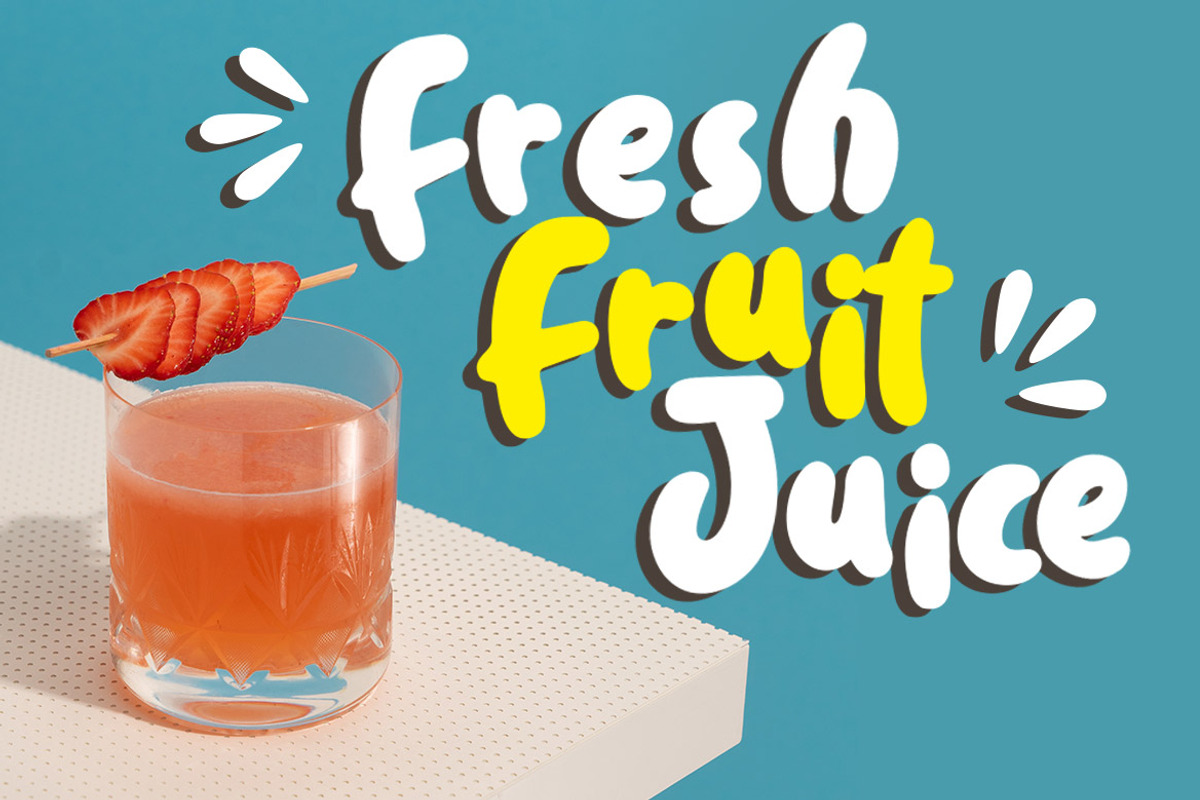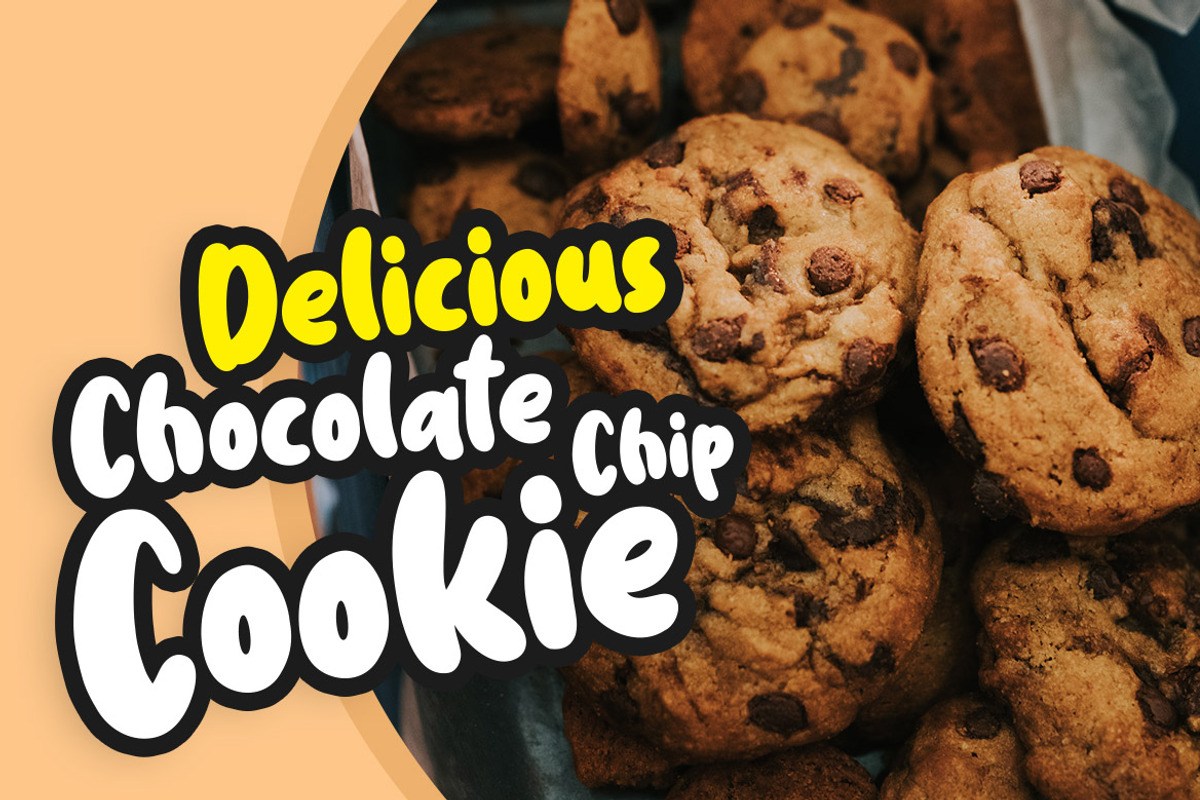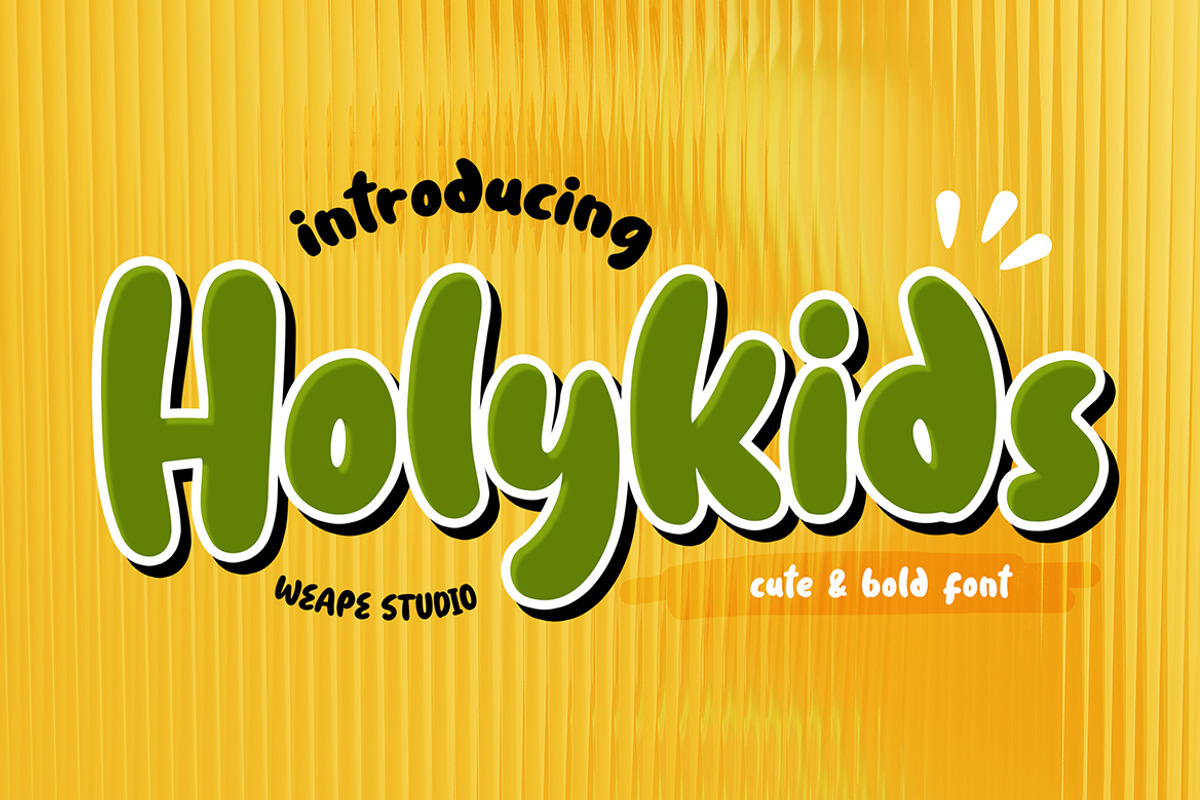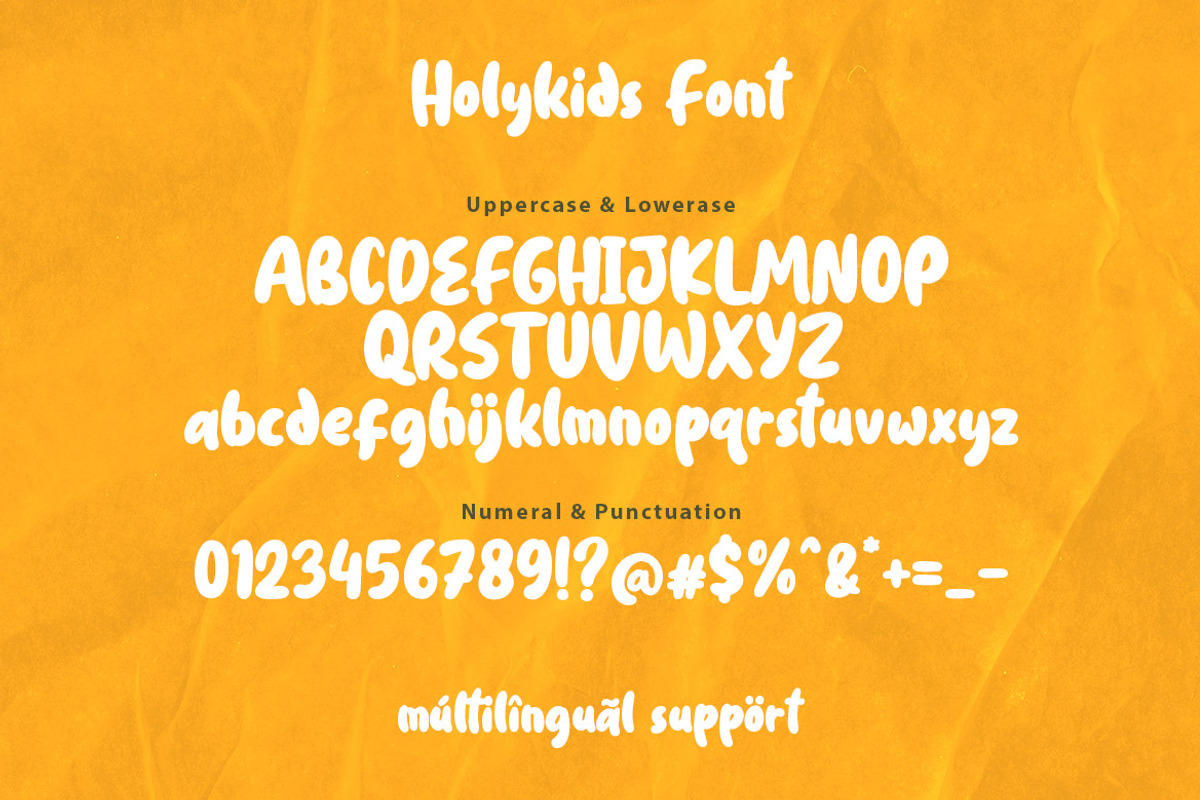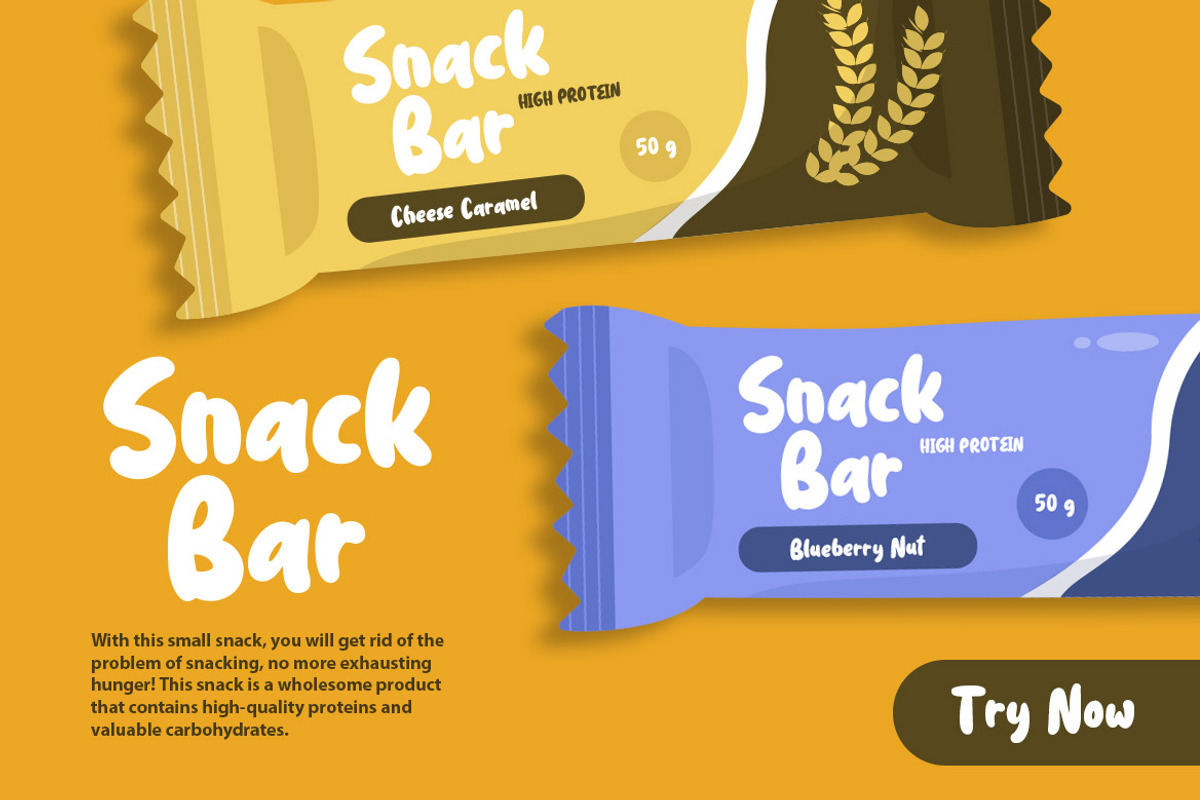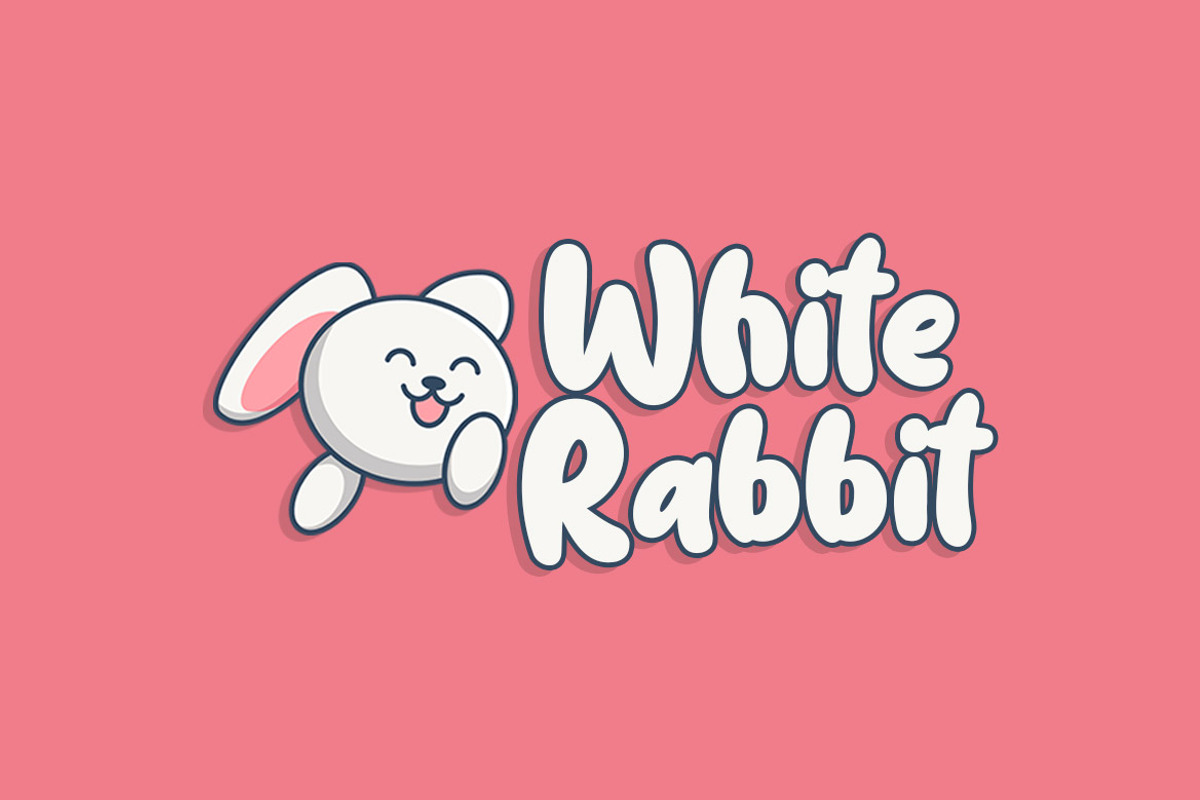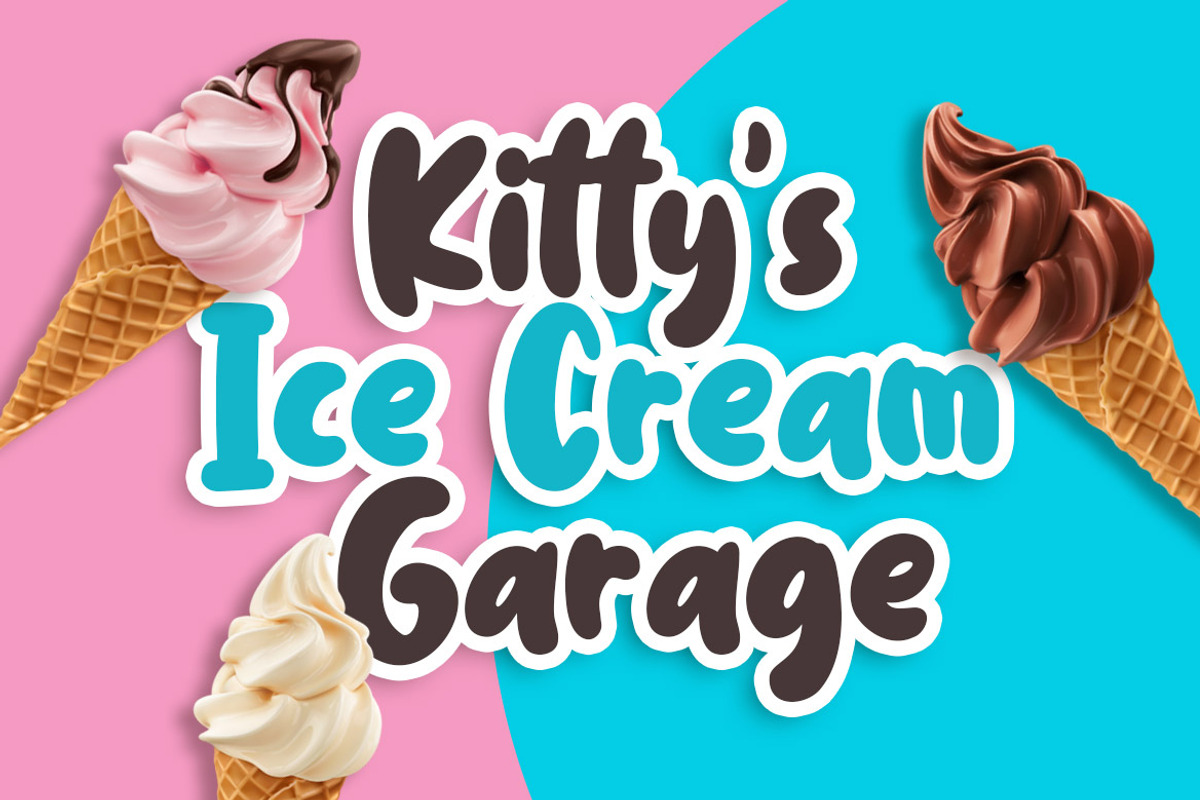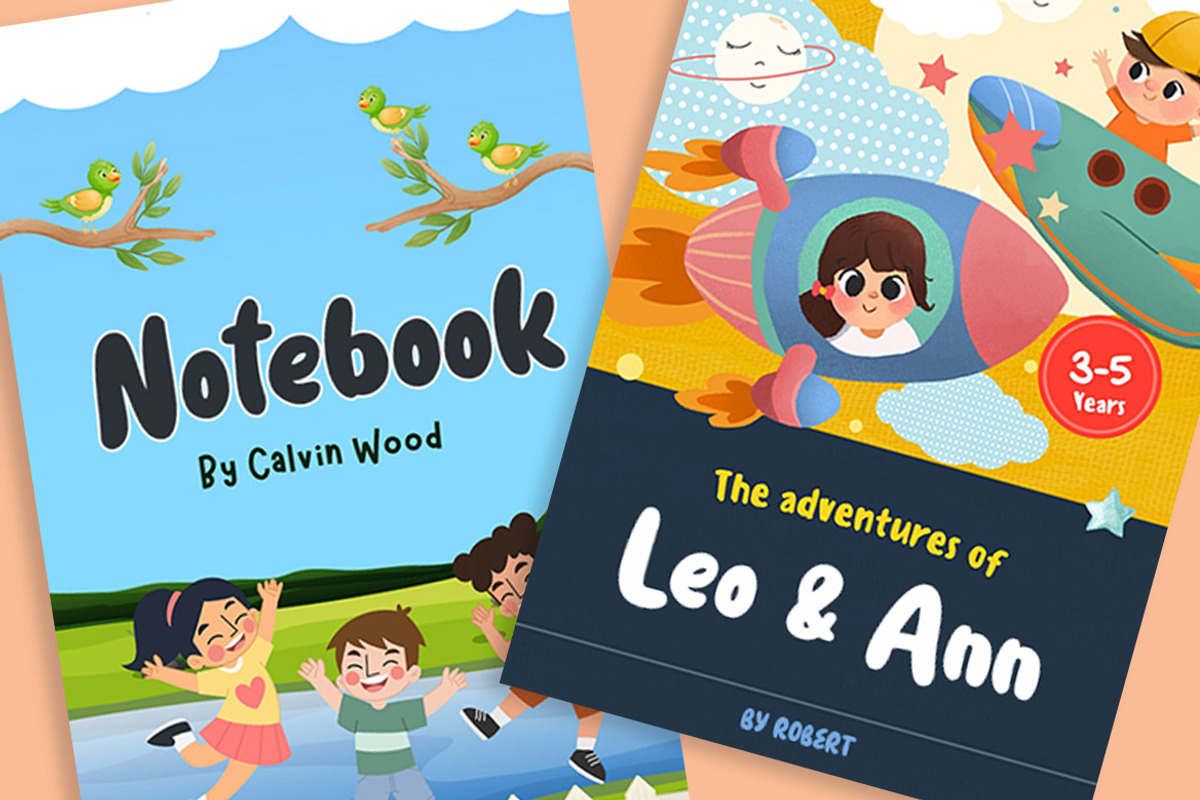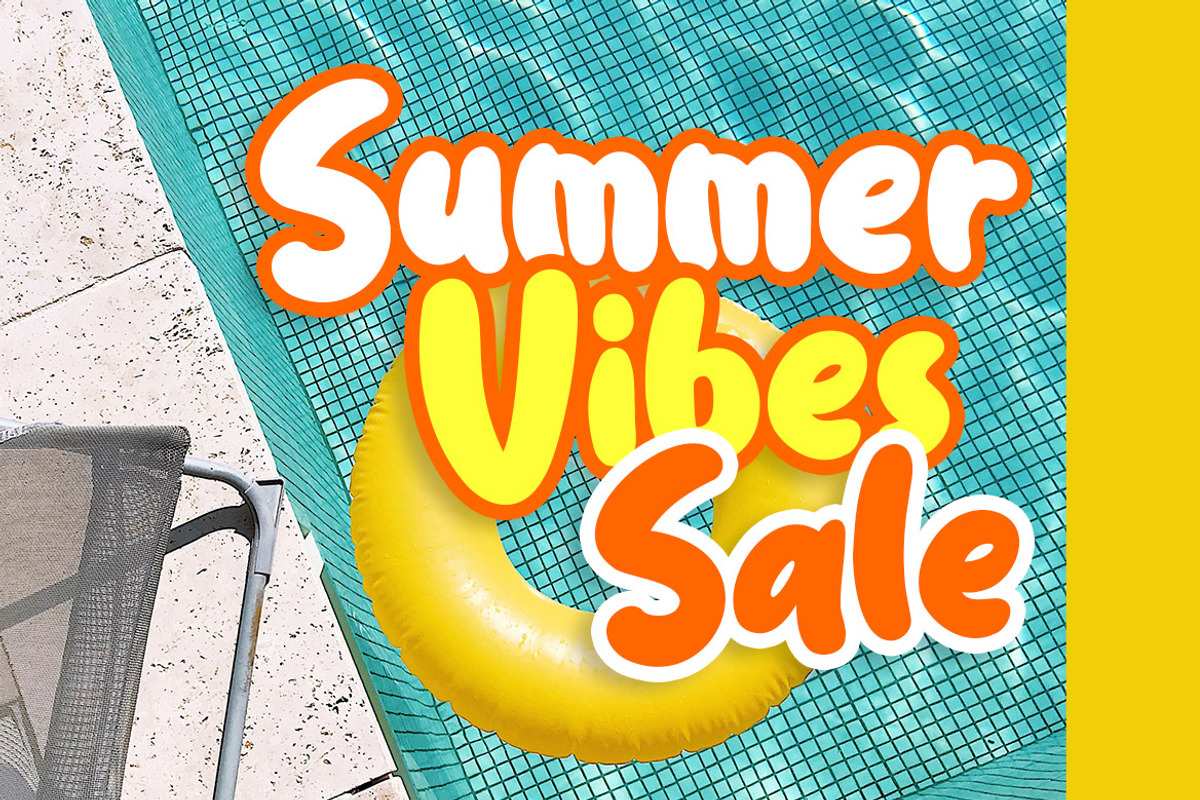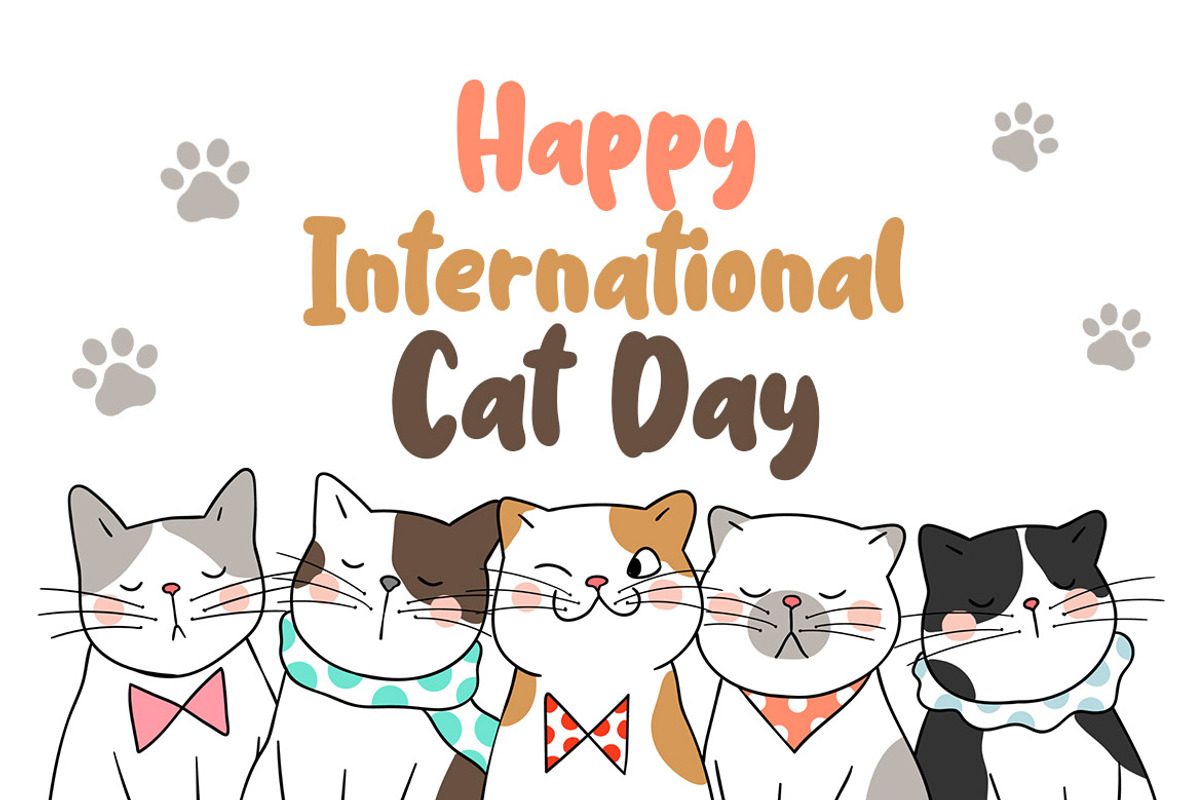
Holykids - Cute & Bold Font
Introducing Holykids - Cute & Bold Font, a new font inspiring from bouncy bold style. With the style of fun and doodle. Which is you can create a cute and fresh design.
Holykids is very suitable for kids t-shirts, birthday cards, meal package design, cover books, logo design, magazines, flyers, children book, quotes, packaging, and of course much more.
This font comes in uppercase, lowercase, punctuations, symbols & numerals, and multilingual support.